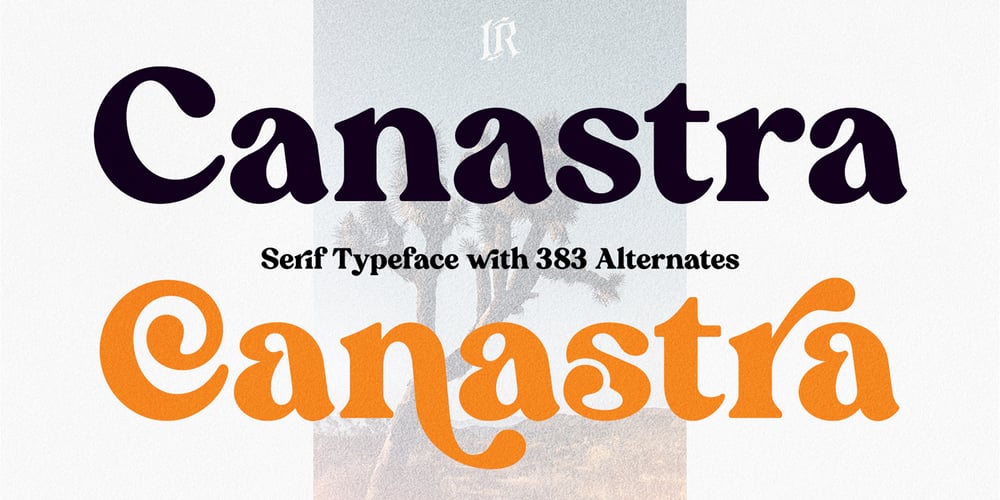
Canastra Font Family was designed by Ivan Rosenberg and published by Ivan Rosenberg. Canastra contains 2 styles and family package options. Canastra Typeface is a stylish vintage font inspired by 70’s groovy vibe with a touch of modernity. It looks amazing at display sizes and is easily readable in text size. Canastra Typeface comes with access to your OpenType features, selection of 383 alternate glyphs and ligatures. Canastra Typeface is a serif font made mainly for headlines, titles, and other short texts and is well-suited for advertising, vintage mood board, branding, logotypes, packaging, titles, editorial design and modern and vintage design.